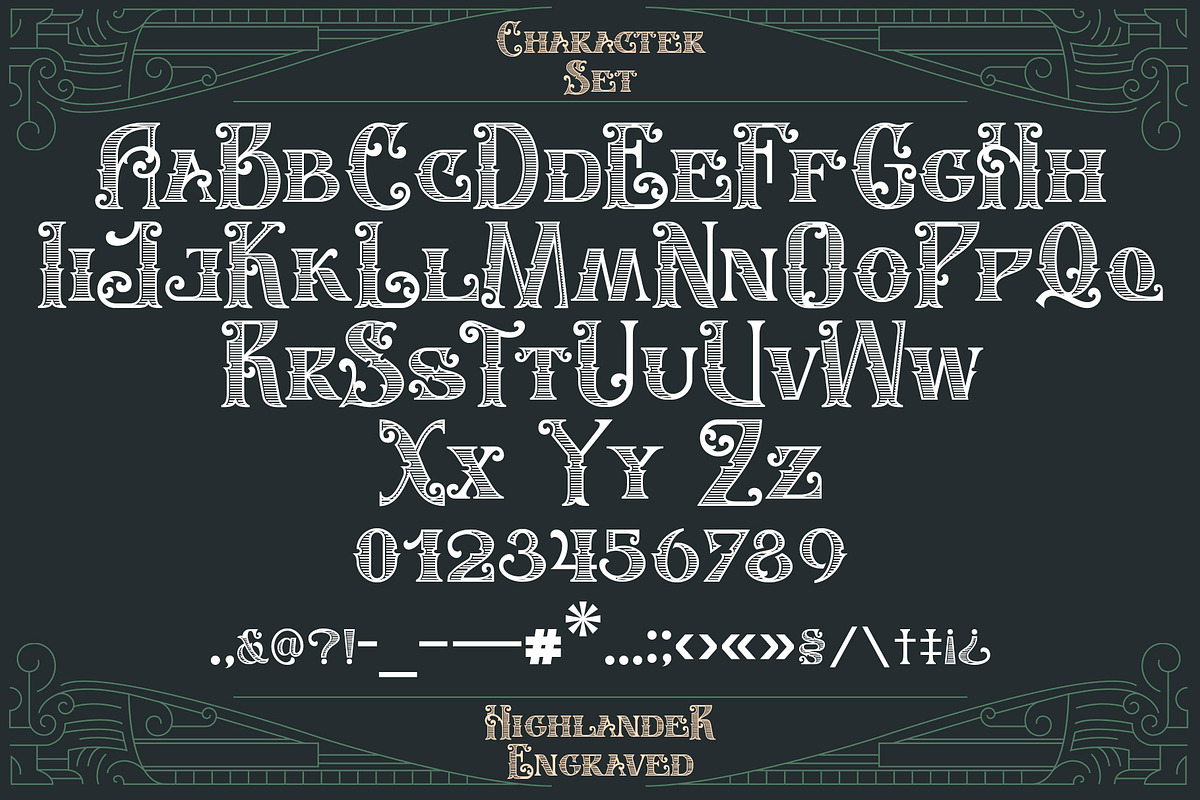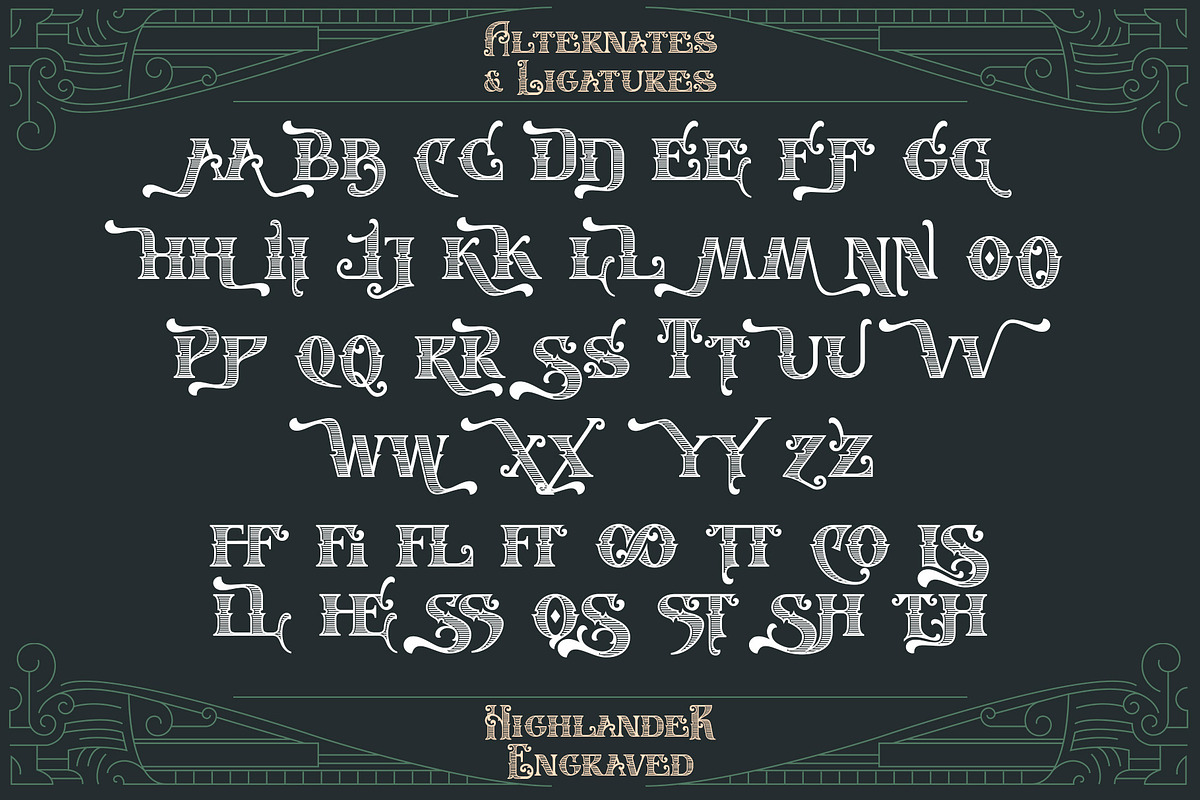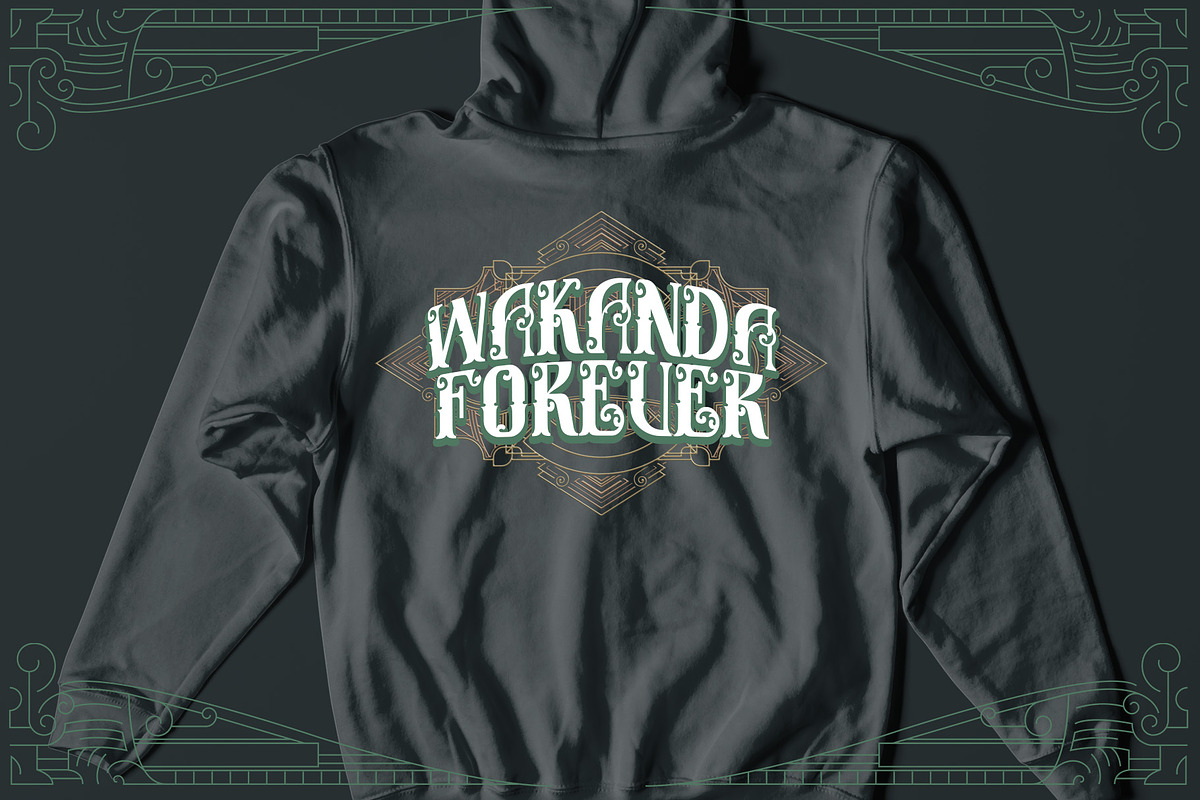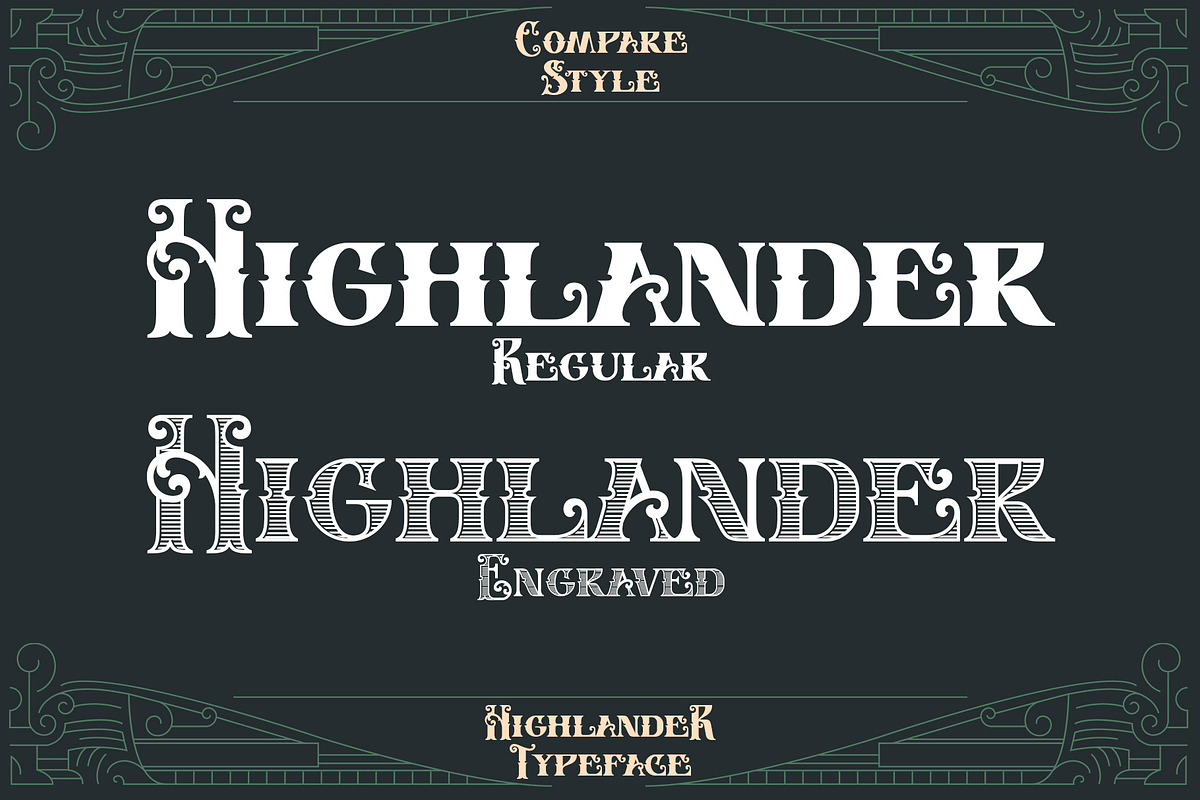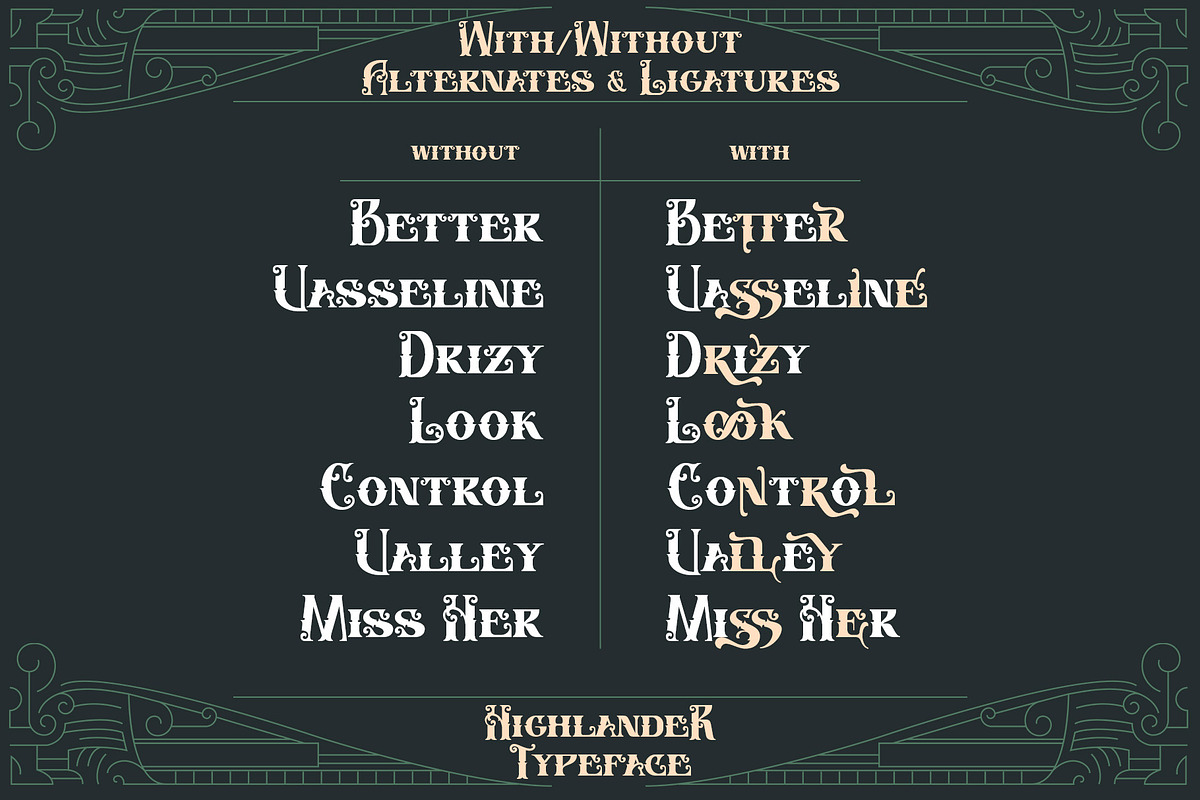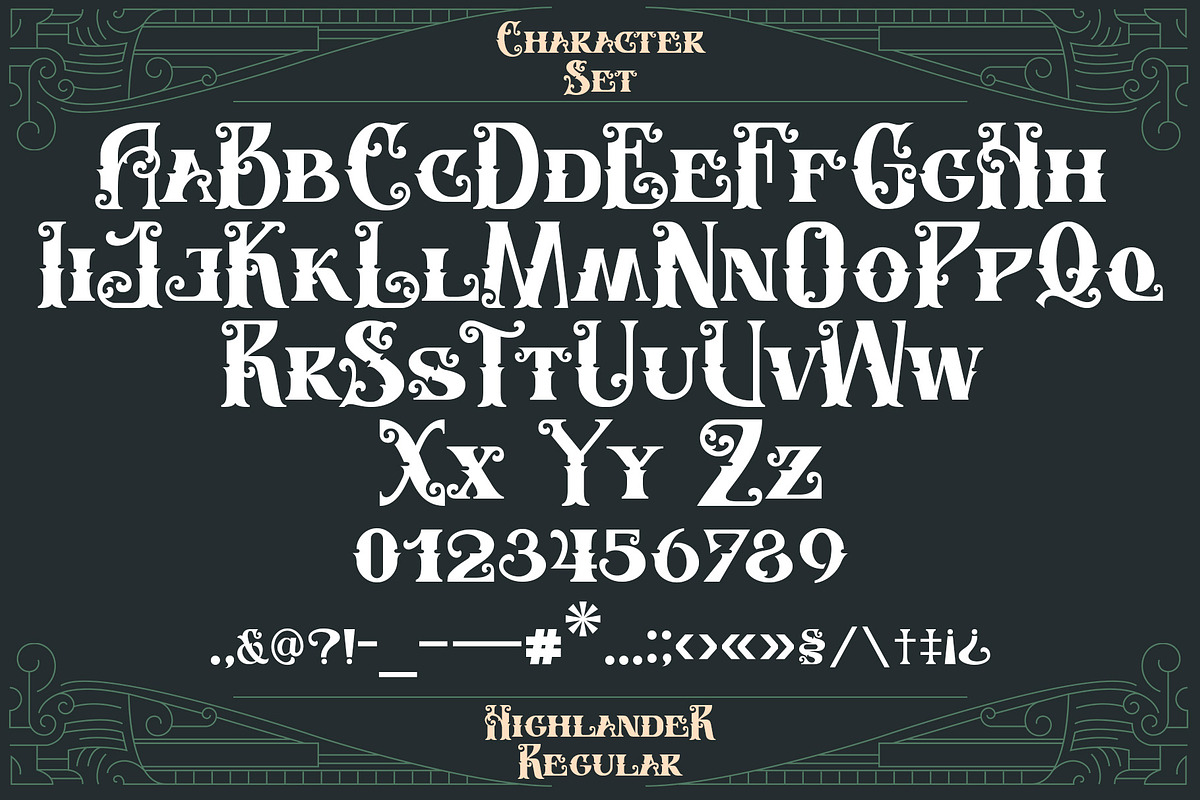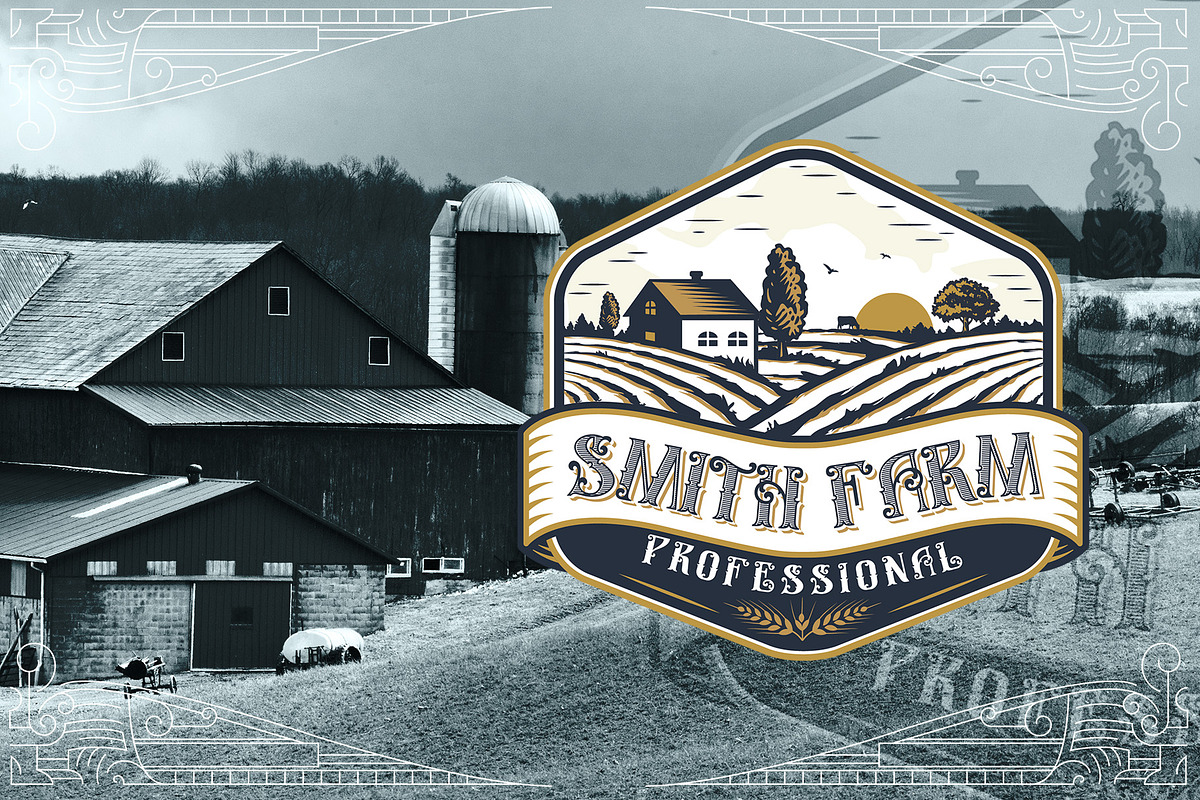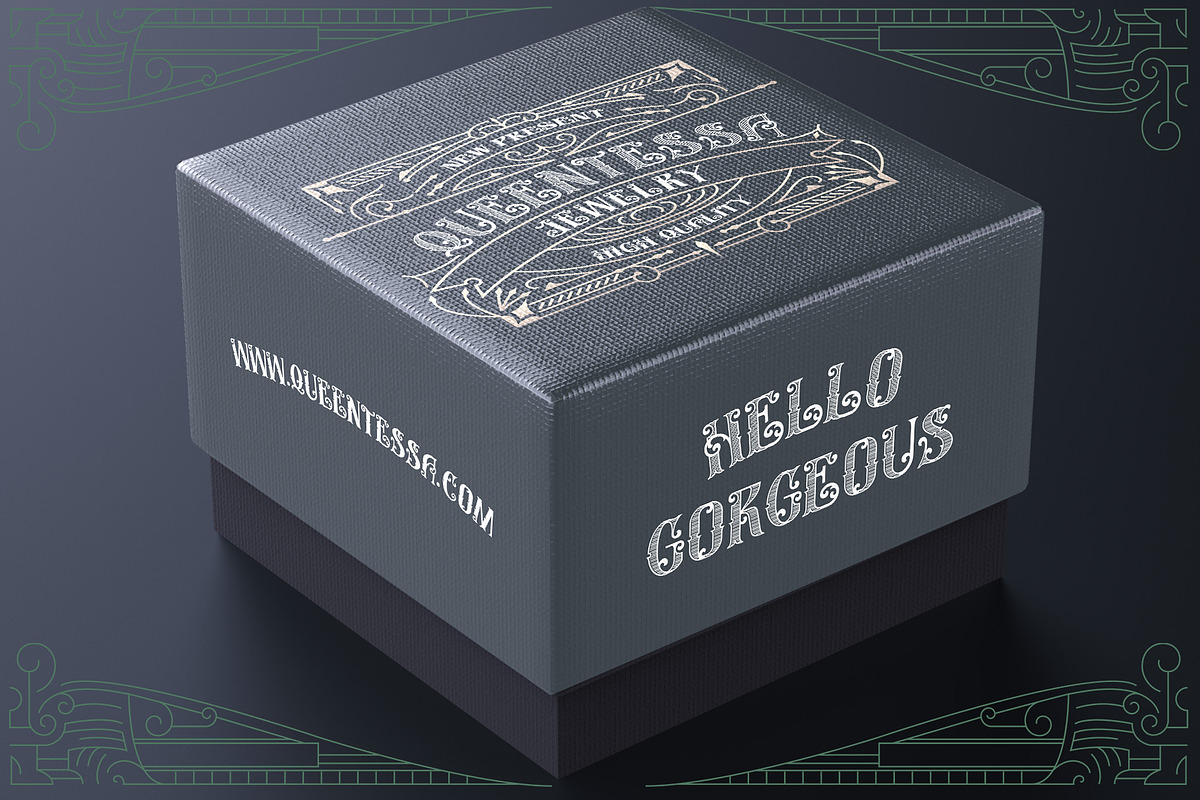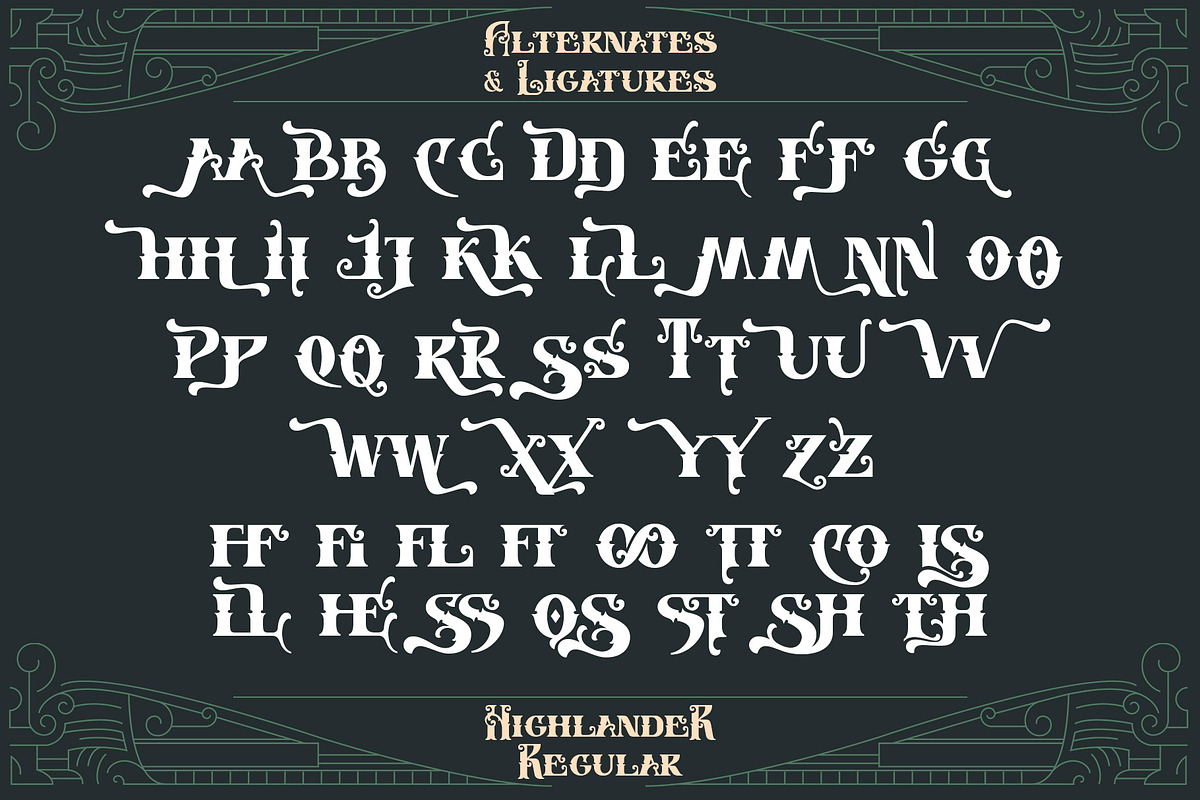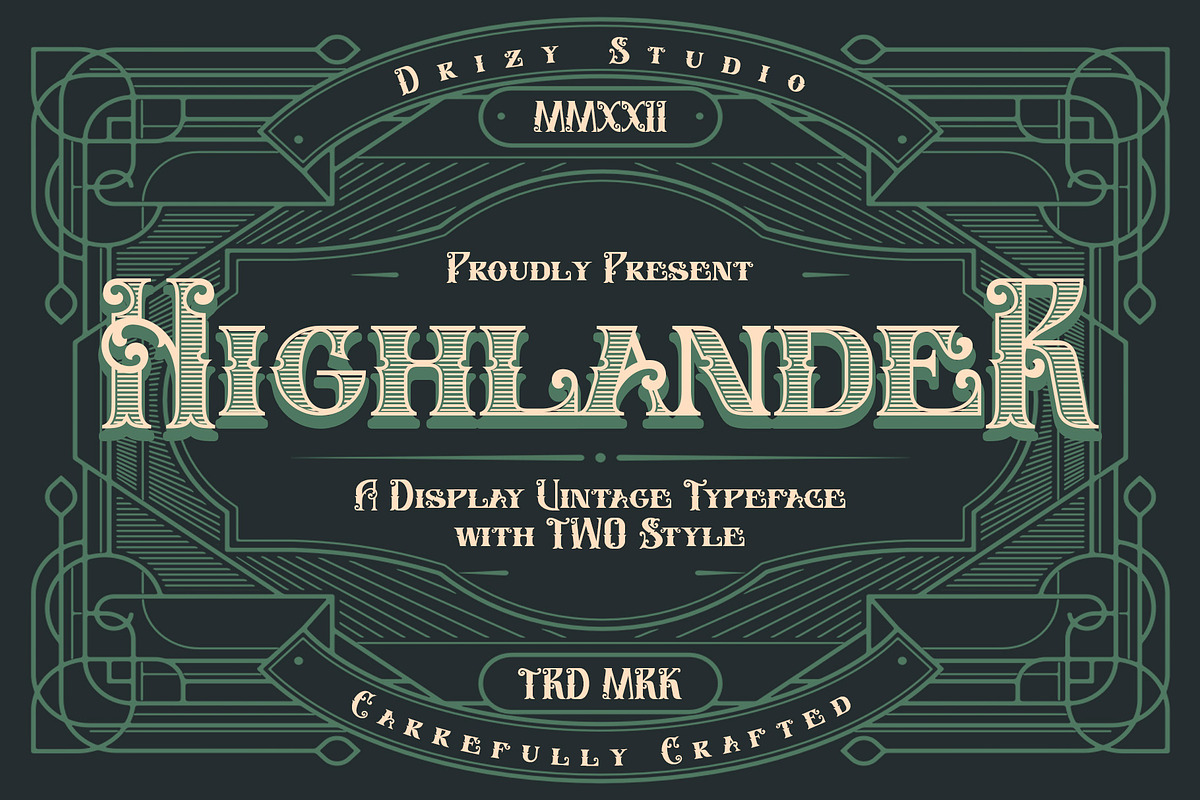
Highlander
Highlander is classy vintage display with two style from drizy studio. Offering all the basic styles you will need for a successful project.
Highlander Features:
Uppercase & Lowercase Numeral & Punctuation Multilingual Ligatures